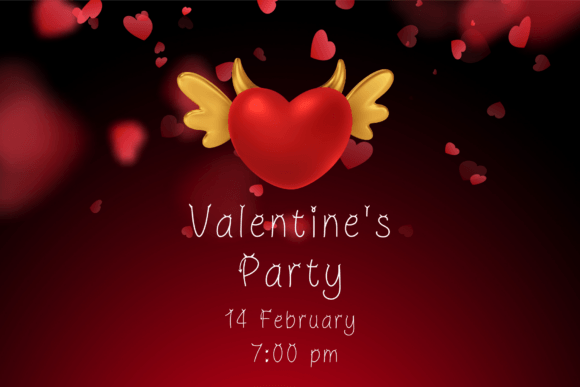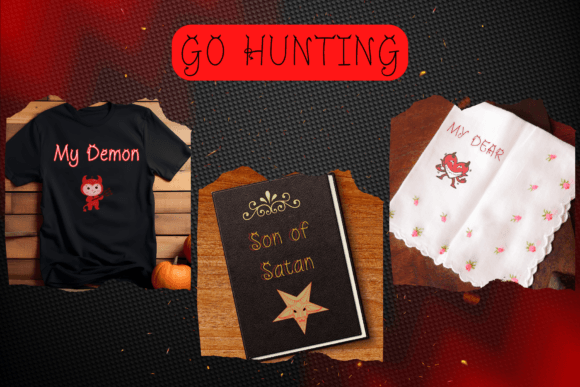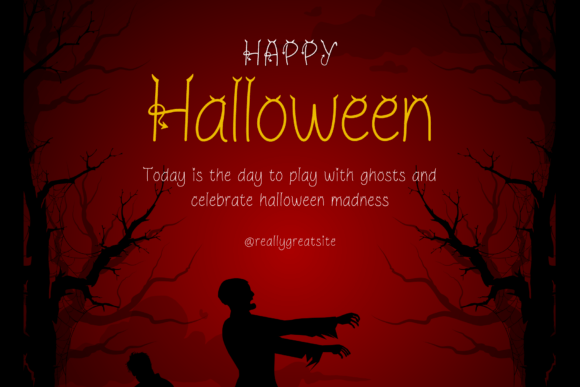
The Ultimate Design Game-Changer: A Little Devil Font
I’ll never forget the moment I stumbled upon A Little Devil Font. I was working on a project for a client who wanted a bold, eye-catching design that would make their brand stand out. I had spent hours scouring the internet for the perfect font, but nothing seemed quite right. That was until I discovered A Little Devil – a game-changing decorative font that instantly elevated my design to the next level!
So, what makes A Little Devil so special? Here are a few things that I absolutely love about this font:
• ✨ Unique and quirky design: A Little Devil has a one-of-a-kind personality that adds a touch of whimsy to any design.
• ✅ Highly versatile: Whether you’re working on a logo, a poster, or a social media graphic, this font adapts seamlessly to any project.
• 💥 Attention-grabbing: Let’s face it – A Little Devil is a showstopper. It’s the perfect font to use when you want to make a bold statement.
Of course, no font is perfect, and A Little Devil does have a few minor quirks:
• 🤔 Limited use in body text: While A Little Devil is amazing for headlines and titles, it’s not the best choice for longer blocks of text.
• ⚠️ Some glyphs may require manual adjustment: Depending on the platform you’re using, you may need to tweak certain glyphs to get the perfect look.
While the true story behind A Little Devil’s creation is a mystery, it’s easy to imagine a designer sitting at their desk, experimenting with different letterforms and styles until they stumbled upon something truly unique. Perhaps they were inspired by the mischievous and playful nature of devils and demons in mythology and folklore. Whatever the inspiration, the end result is a font that’s both captivating and versatile.
What makes A Little Devil so unique? A Little Devil’s unique design and quirky personality set it apart from other fonts.